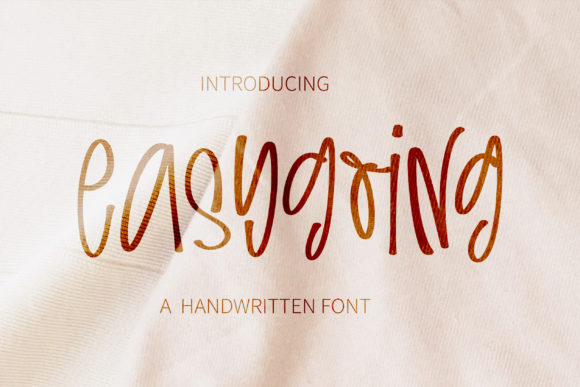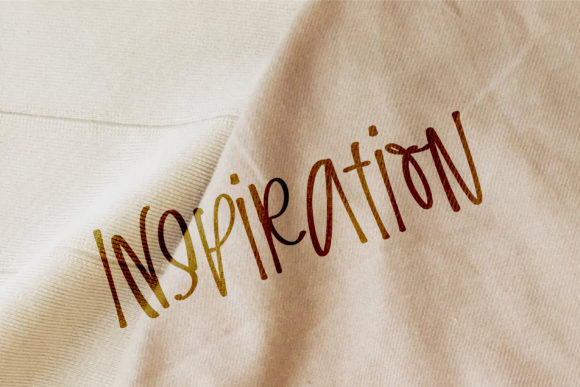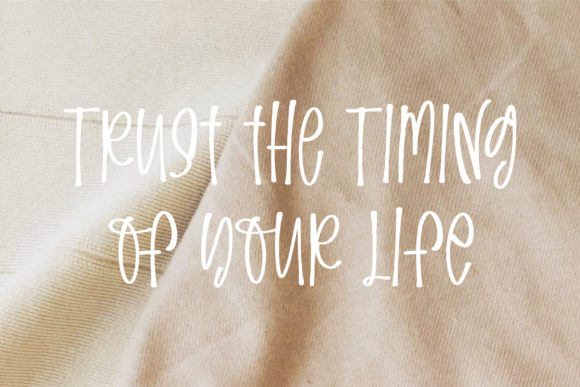
About Easygoing Font
Easygoing is a relaxed and unique handwritten font. Fall in love with its incredibly versatile style and use it to create gorgeous wedding invitations, beautiful stationary art, eye-catching social media posts, and much more!